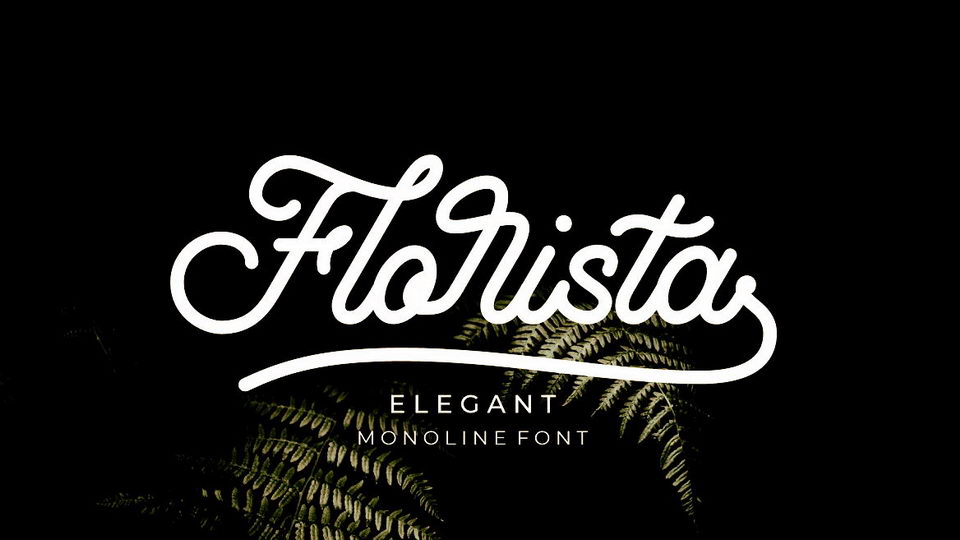
Download Florista font, an elegant monoline vintage typeface, a seamless clean script. Florista is perfect for any design project, logo, label, t-shirt design, social media and more.
Designer: SusiType